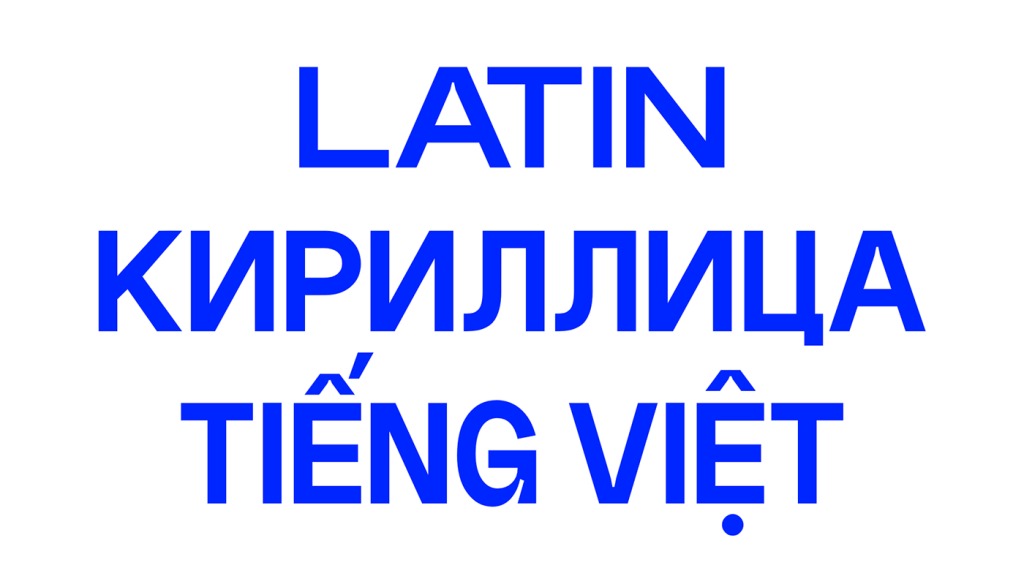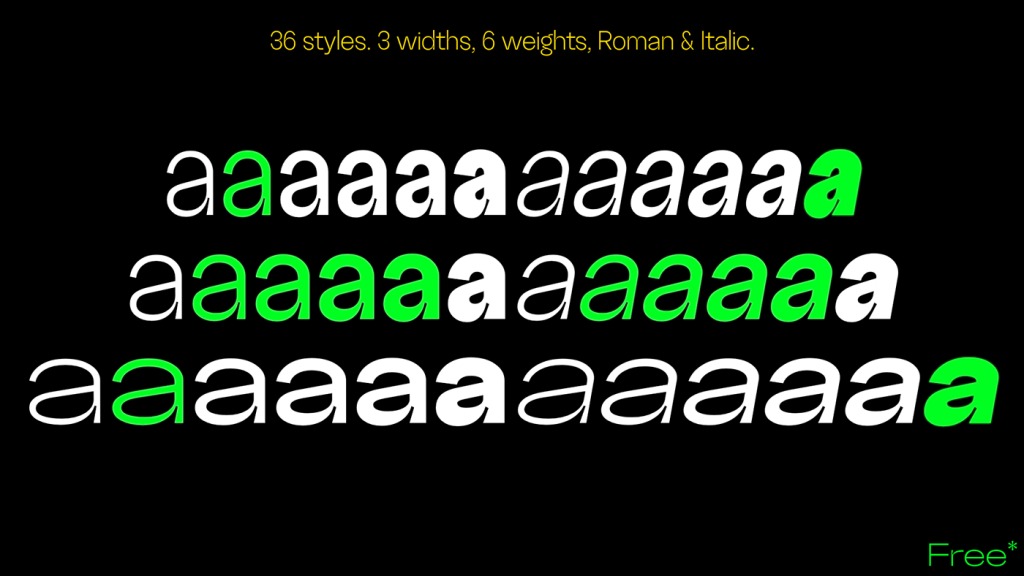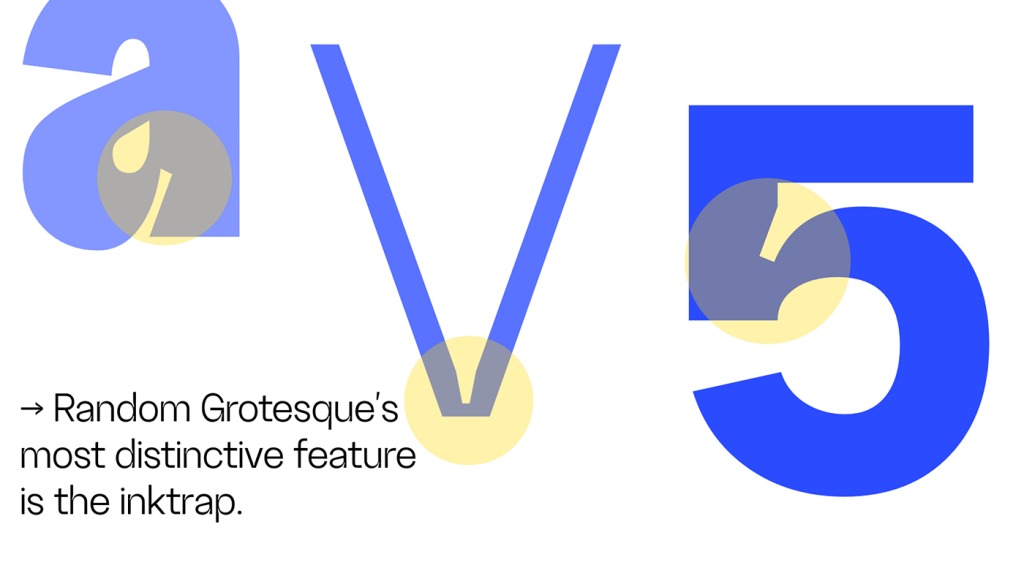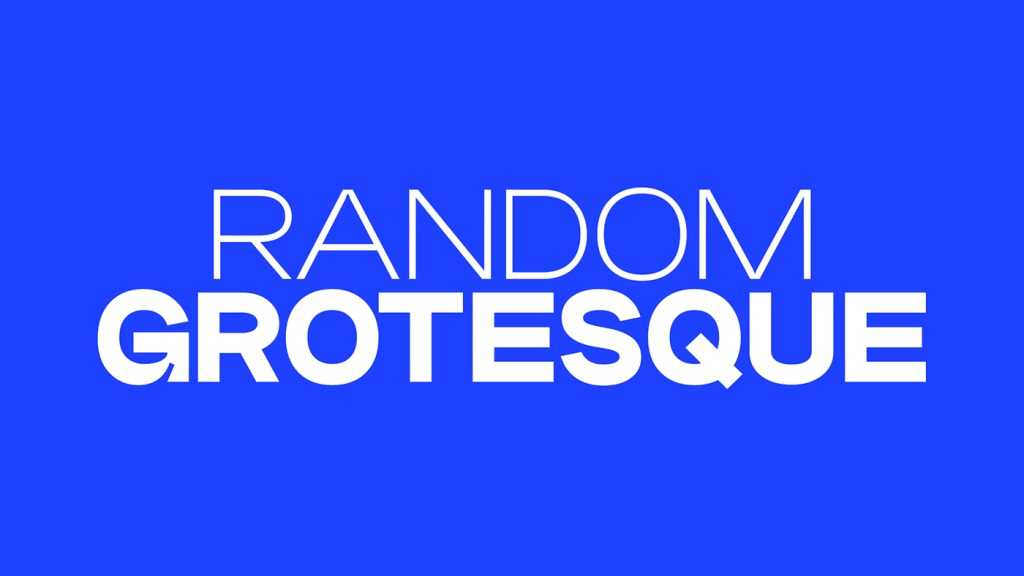
Random Grotesque Font
Random Grotesque Sans Serif Font is a condensed font family with a display character and neo-grotesque nature, friendly and energetic. It was originally designed to capture the feel of Helvetica but still maintain its unique personality. The most distinguishable feature is the inktrap. “Random Grotesque” is great for posters, logos, headings, titles, subtitles, or text blocks of different sizes.
The whole family consists of 36 styles, with 3 widths: Slim, Standard, and Spacious; 6 weights ranging from Light to Black; Upright and Italic. 12 Standard-width fonts will be free for personal and commercial uses. Each font contains 737 glyphs and supports over 101 languages.